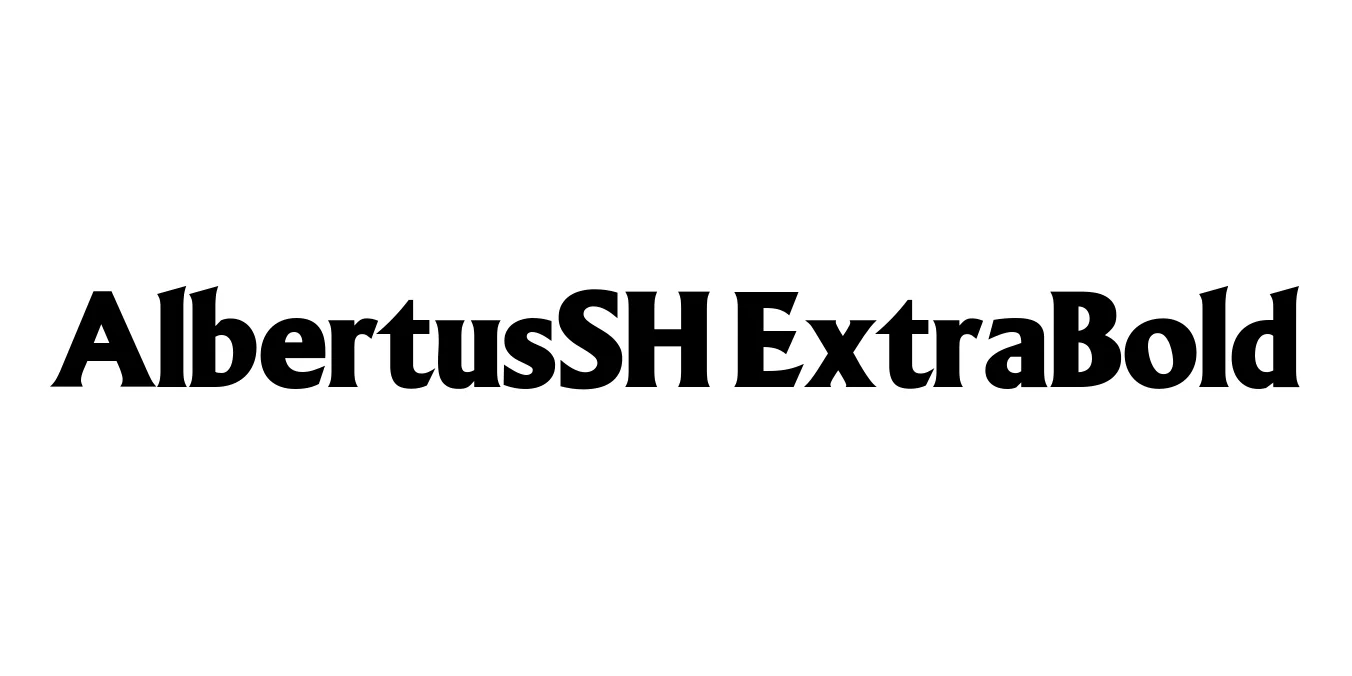
AlbertusSH ExtraBold
Designed by Berthold Wolpe
| Category | Glyphic Serif |
| Designer | Berthold Wolpe |
| Similar Fonts | Friz Quadrata, Flareserif, Amerigo, Copperplate Gothic |
AlbertusSH ExtraBold is a powerful glyphic serif typeface based on the original designs by Berthold Wolpe, created between 1932 and 1940 for Monotype. Named after the 13th-century philosopher Albertus Magnus, the typeface is distinct for its chiseled, incised appearance, which directly reflects Wolpe's background as a goldsmith and metal engraver. The SH variant refers to the Scangraphic Heritage version, optimized for high-quality digital reproduction.
The ExtraBold weight is particularly celebrated for its authoritative and monumental presence. It gained massive cultural recognition through its use in the iconic British television series 'The Prisoner' and its role as the standard typeface for street name signs in the City of London. Its unique construction—featuring flared terminals and sharp, triangular serifs—offers a blend of calligraphic grace and structural strength that is unmatched by more traditional serifs.
AlbertusSH ExtraBold Best Uses
Ideal for high-impact headlines and book covers that require a sense of history and weight.
Traditionally used for physical signage due to its exceptional legibility and stone-carved aesthetic.
Perfect for logos and identity projects that want to convey authority, heritage, and artistic craftsmanship.